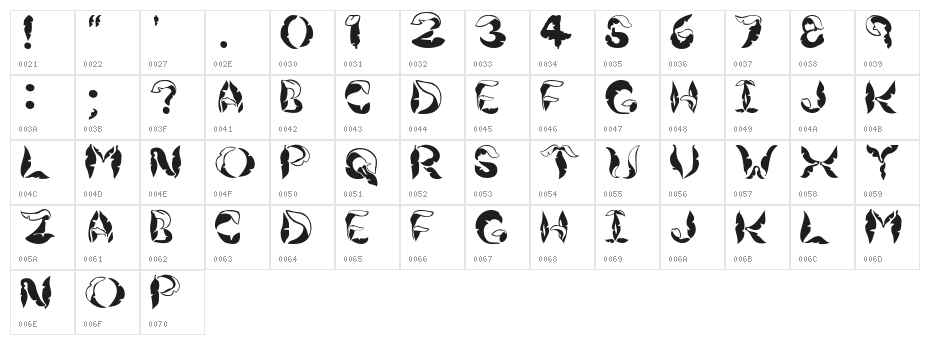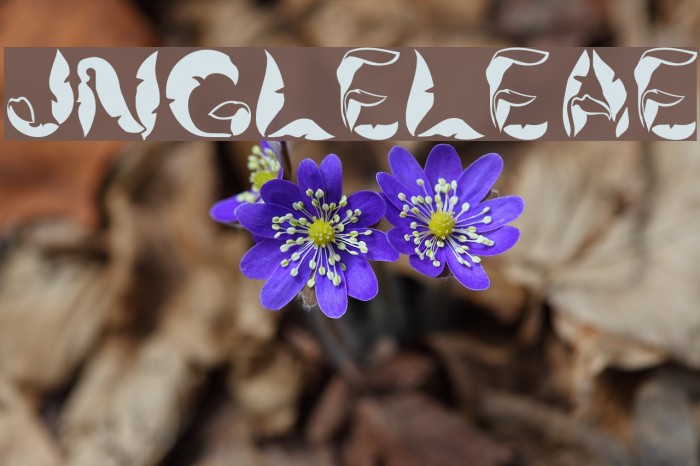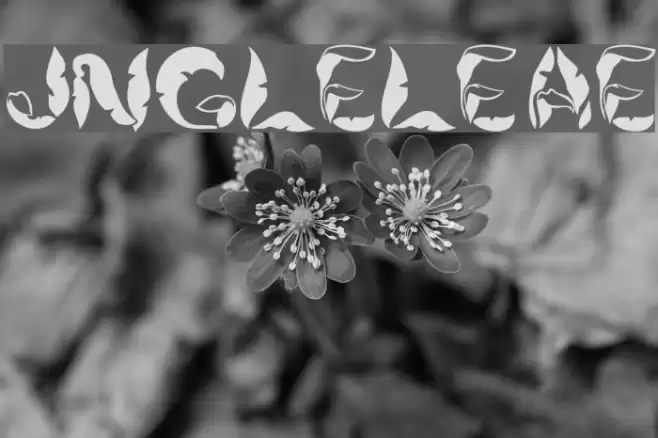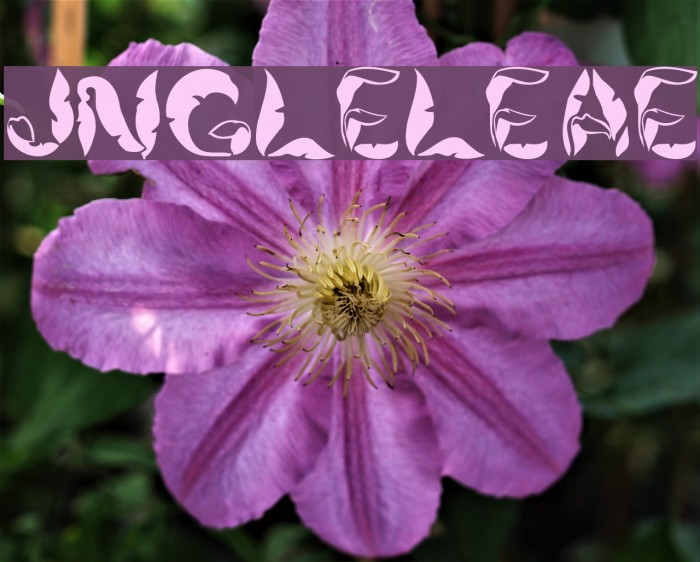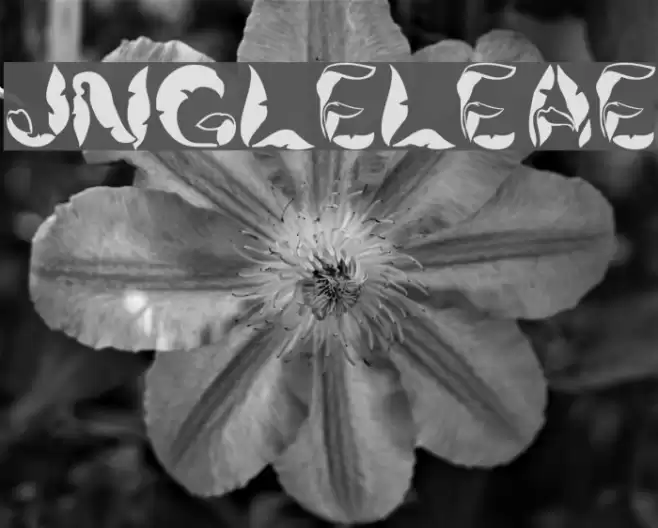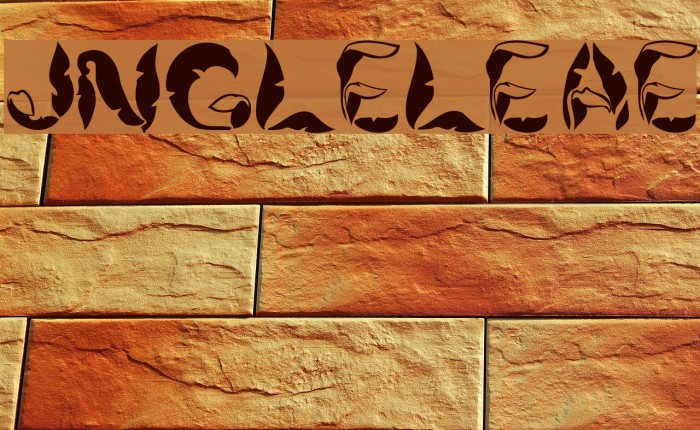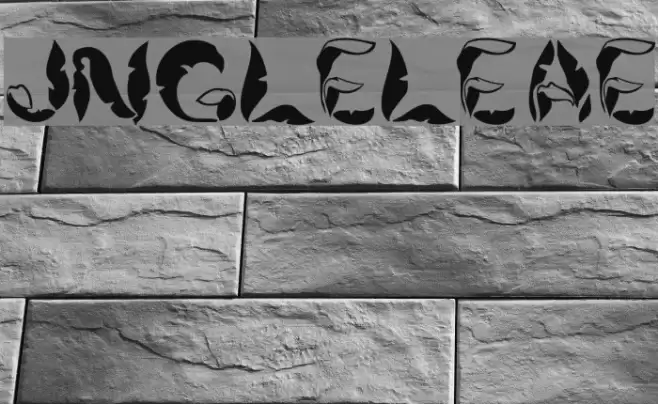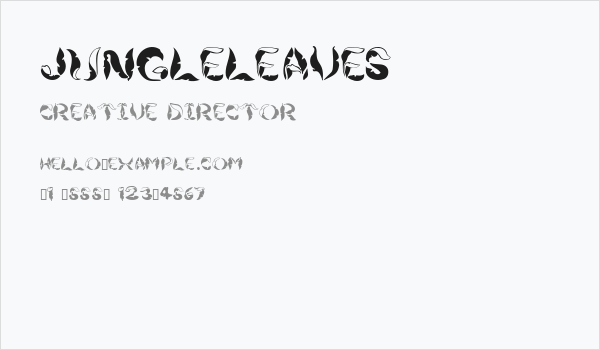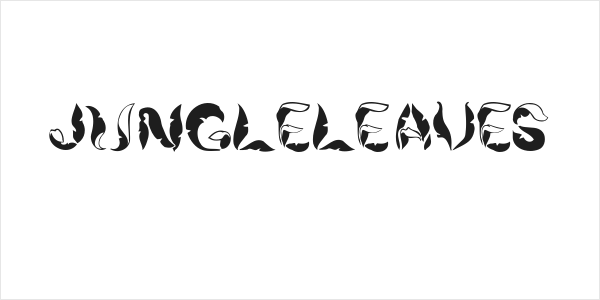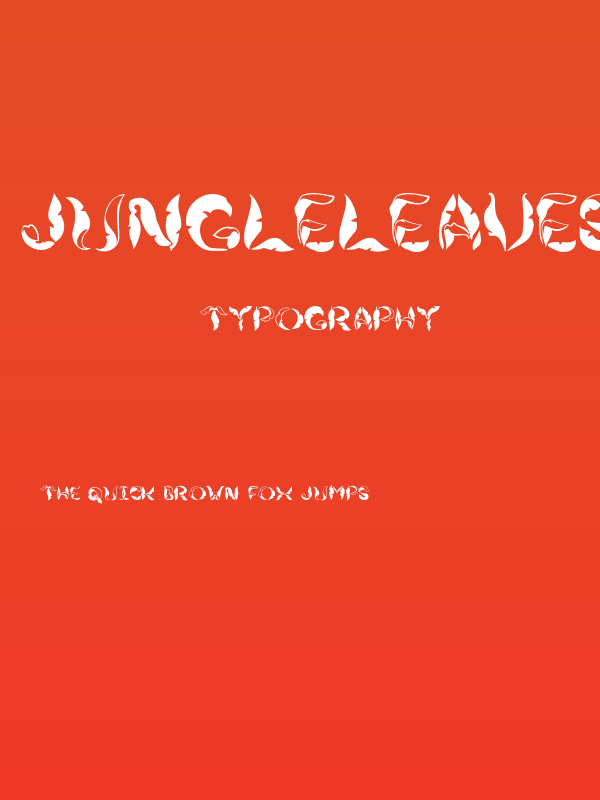
JungleLeaves Font
JungleLeaves Description
This font features a unique, decorative style with elements that resemble leaves or jungle foliage integrated into each character. The bold, organic shapes create a sense of movement and natural beauty, making it stand out as a display font. The uppercase and lowercase letters maintain a consistent theme, with intricate details that mimic the curves and edges of leaves. Numbers and special characters are equally stylized, ensuring a cohesive look across all glyphs. The overall design is playful yet sophisticated, perfect for projects that require a touch of nature or an exotic flair.